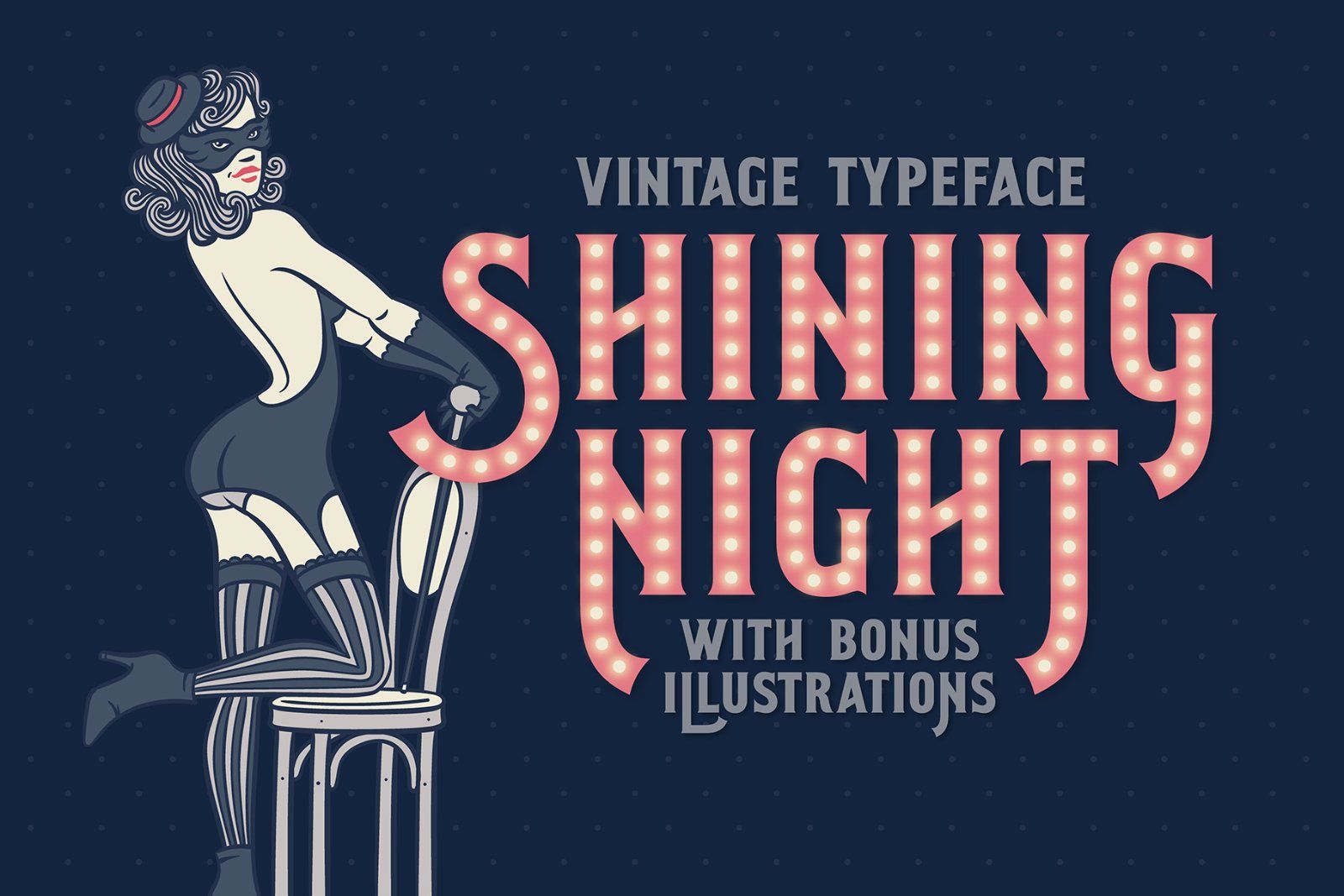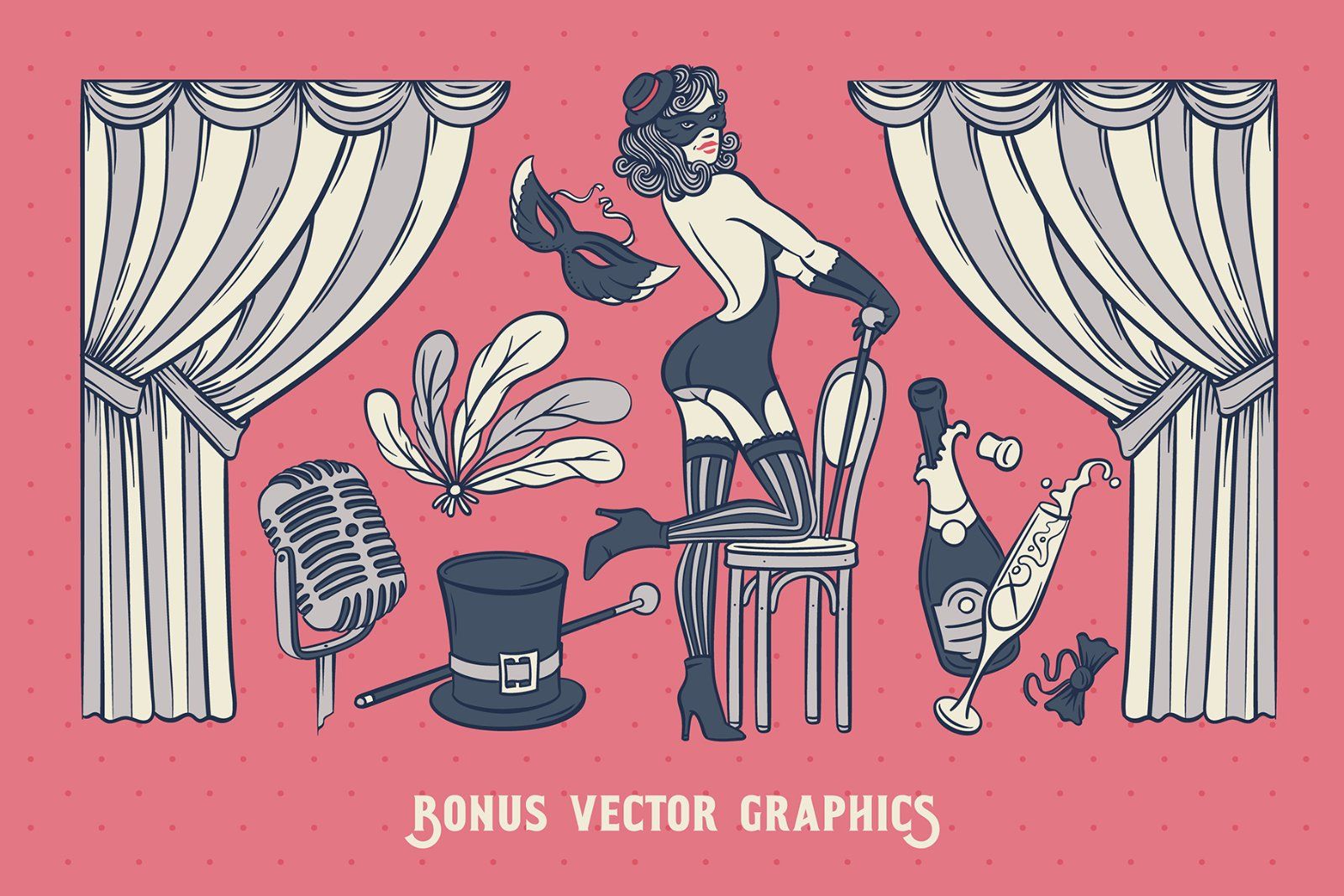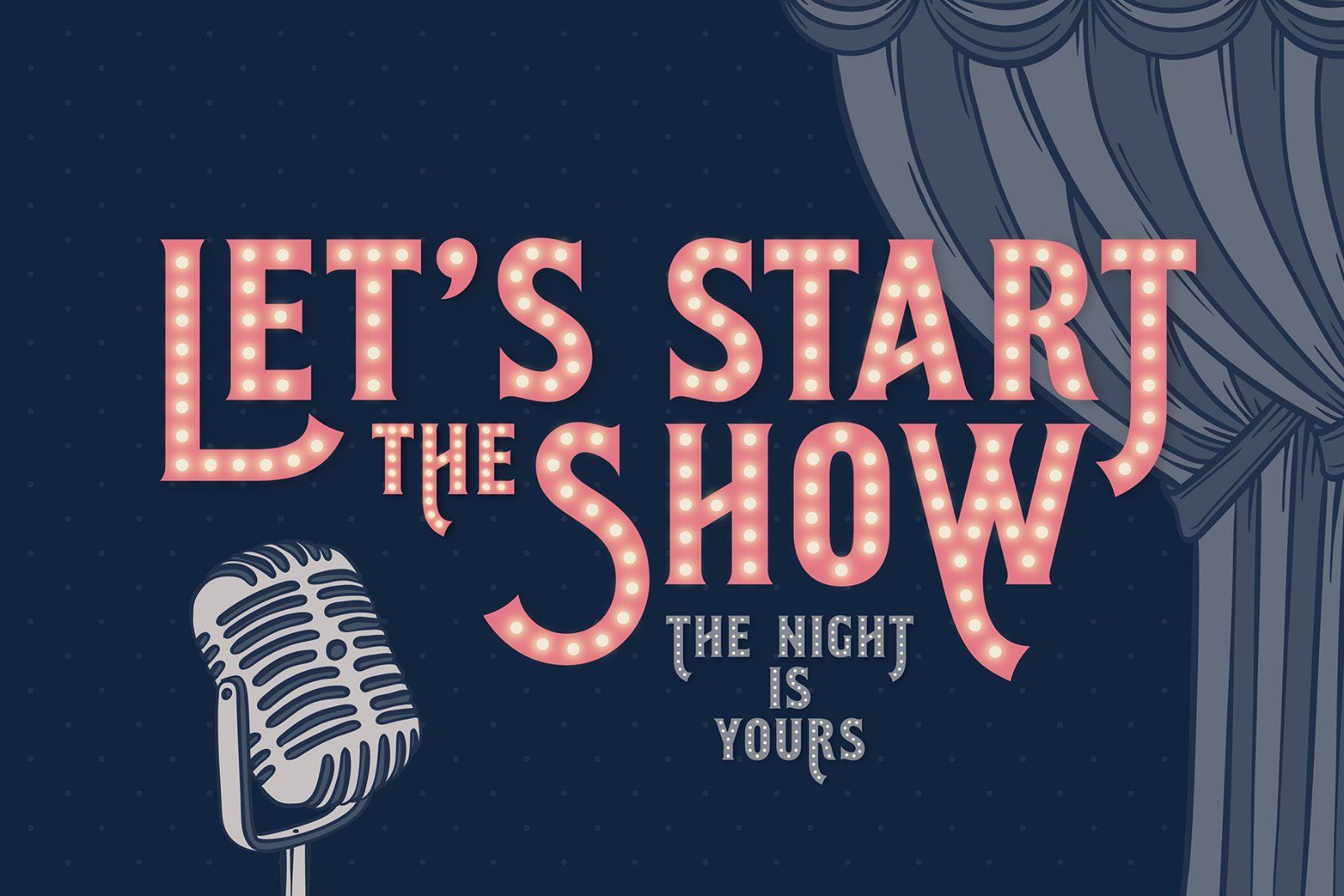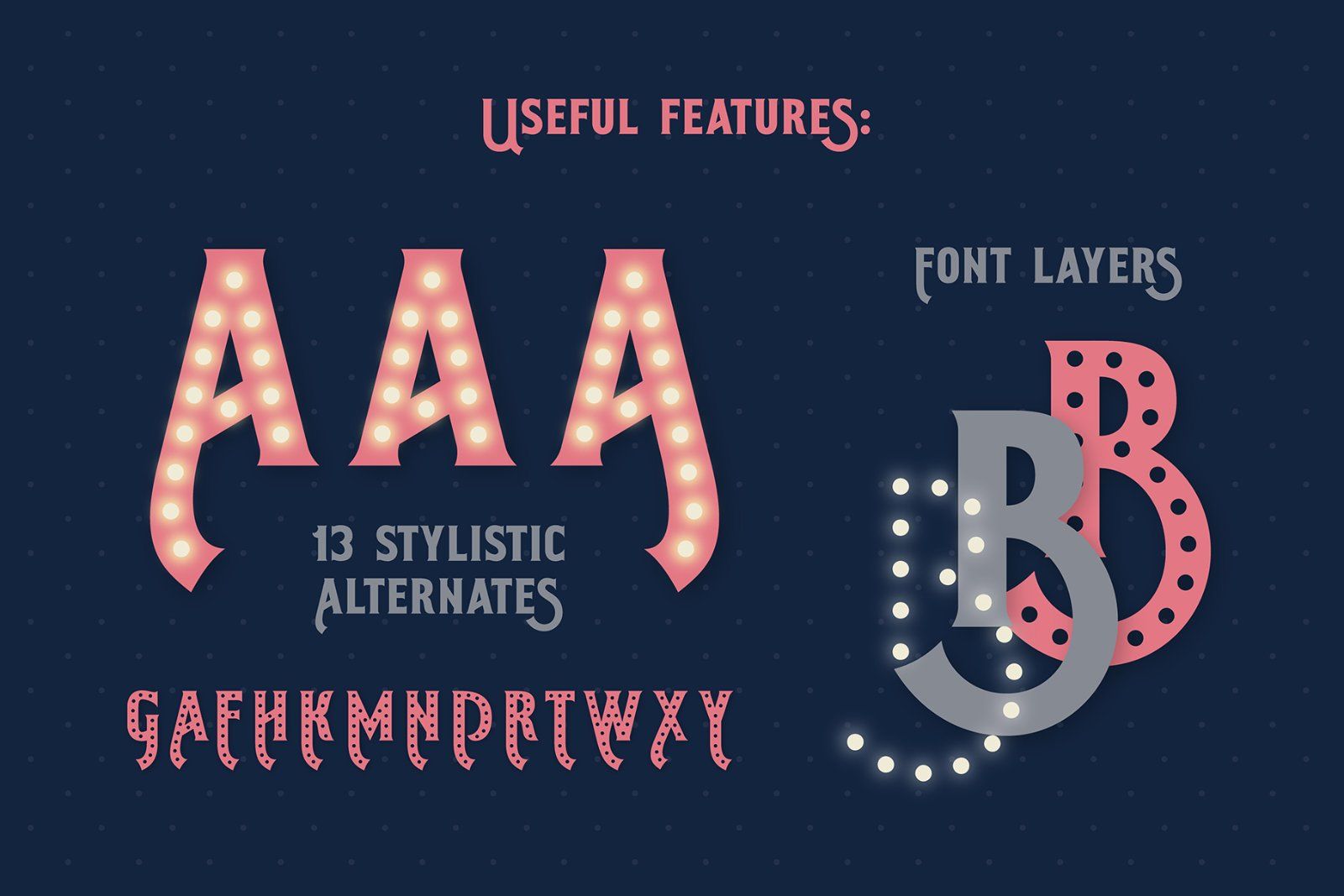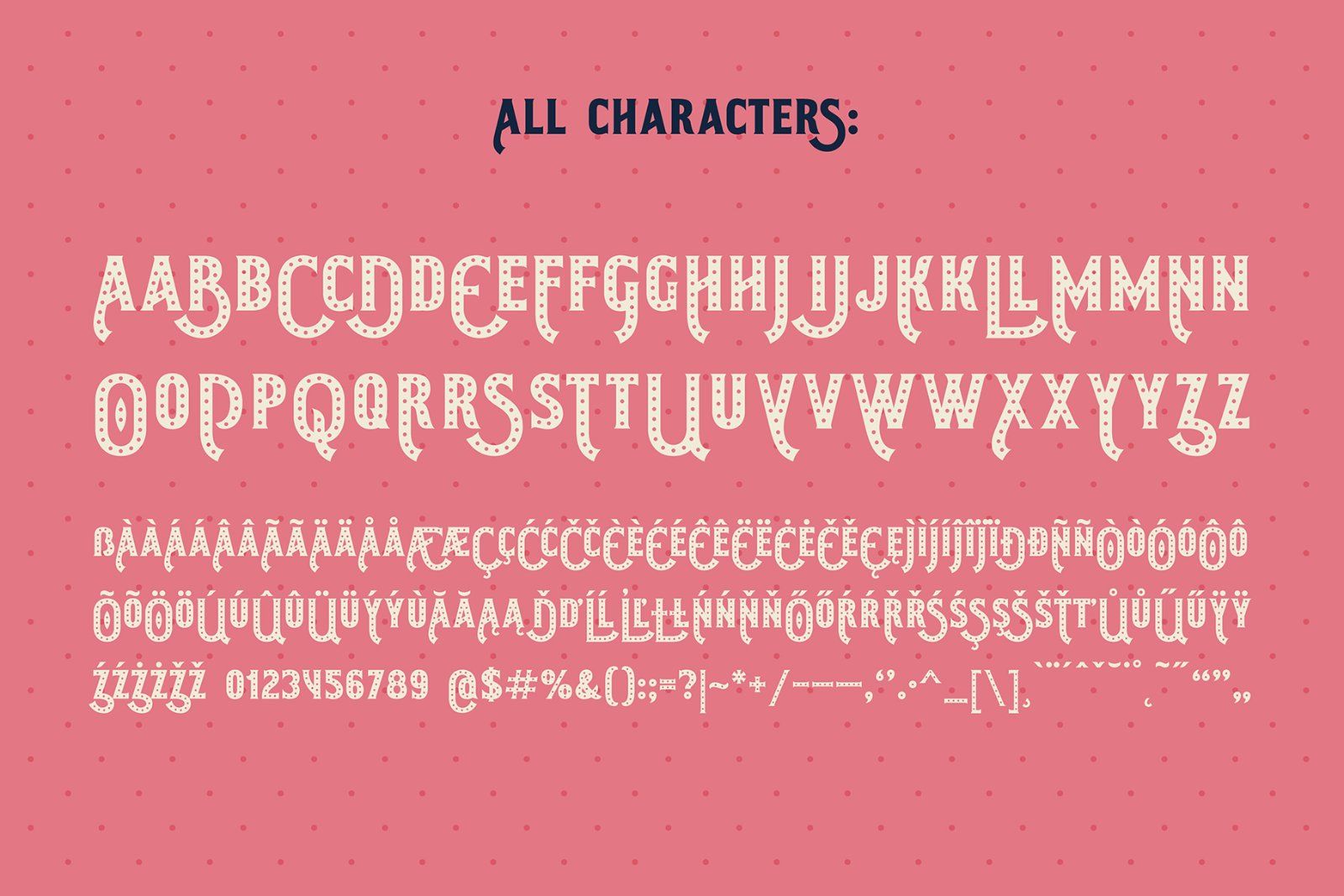
Hi! Introducing a vintage style font, with a beautiful cabaret female dancer illustration. This font has additional font file with round dots over the base glyphs, that imitates a lamp lights of a real cabaret signboard.